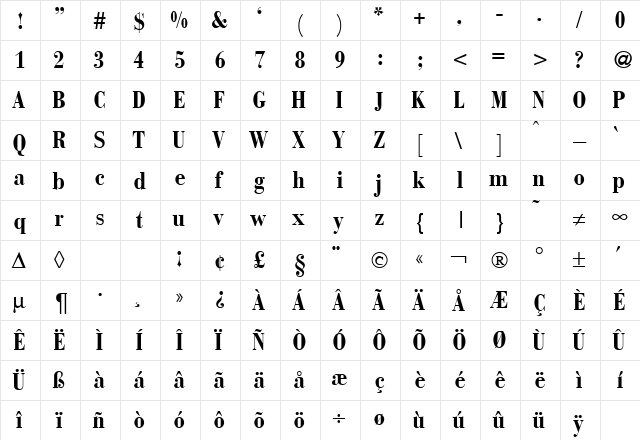
BodoniRecutCondMedium Regular Font Preview
BodoniRecutCondMedium Regular
Design Context for BodoniRecutCondMedium Typeface
BodoniRecutCondMedium is a composed and adaptable typeface that performs quietly and consistently across a wide range of design contexts. The condensed width makes it efficient for tight spaces without sacrificing legibility.